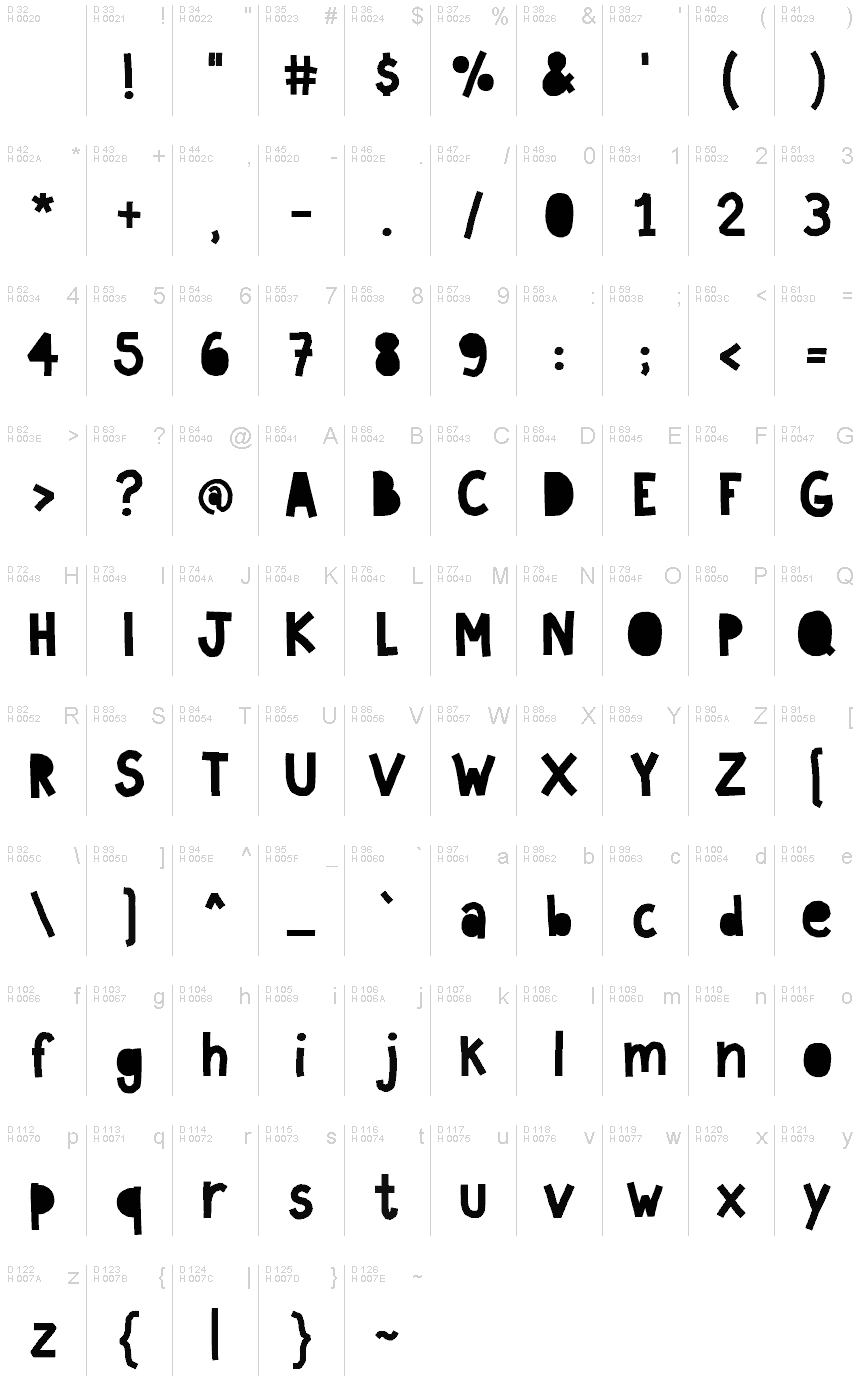
Paperland
Paperland, crafted by the talented font designer Nina, emerges as a display font with a distinctive flair that instantly captures attention. Its bold structure and creative form exude a playful yet robust character, making it an excellent choice for projects seeking to make an impressionable statement.
The aesthetic appeal of Paperland lies in its clever balance between whimsical charm and professional polish. Each letter boasts a unique personality through unconventional cuts and angles, suggesting the essence of cut-out paper artistry in digital form. This imaginative approach gives designs an added layer of depth and storytelling.
Perfect for branding, poster creation, editorial headlines, or any artistic endeavor that calls for a touch of creativity, Paperland's versatility shines through its potential to blend seamlessly into diverse design landscapes. Whether you're aiming for lighthearted fun or impactful visual narratives, Paperland is poised to elevate your project with its unforgettable style.